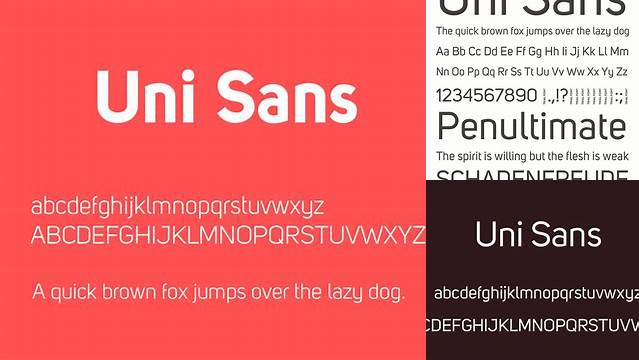
Hey everyone! Are you on the hunt for a fantastic, eye-catching font that won't break the bank? Then, Uni Sans Trial Bold Font might just be your new best friend. This awesome font is known for its clean lines, modern aesthetic, and versatility. And the best part? You can score a free download! But before you jump in, let's break down everything you need to know about Uni Sans Trial Bold, from where to find it to how to use it like a pro. This guide is packed with tips, tricks, and everything in between to get you started. Whether you're a seasoned designer, a budding enthusiast, or just someone who appreciates a good font, this is your go-to resource. We'll cover the nitty-gritty details, explore its different applications, and make sure you're fully equipped to make the most of this free font. So, let's dive in and unleash the power of Uni Sans Trial Bold! Get ready to elevate your designs with this awesome font. We'll walk you through everything, so you can use it with confidence and style. Keep reading, and you'll be a Uni Sans expert in no time! Let's get started and explore all the amazing things this font has to offer. This is going to be a fun ride, so buckle up and let's do this. Trust me; you're going to love what you find out.